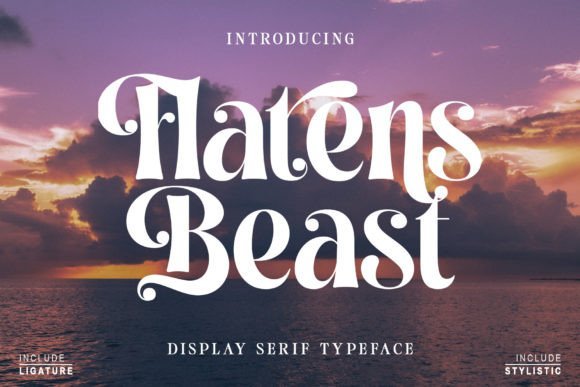
Introduction to Flatens Beast Font
Flatens Beast is a special modern style serif font.
A mix of regular and stylish letters in a beautiful elegant font made with pinpoint accuracy with beautiful curves, and will make your masterpiece very special It is perfect for branding designs, logos, greeting cards, title packaging and other designs.
Key Features of Flatens Beast Font
Why Choose Flatens Beast Font?